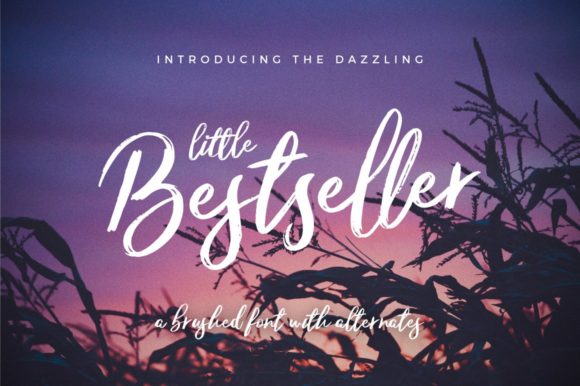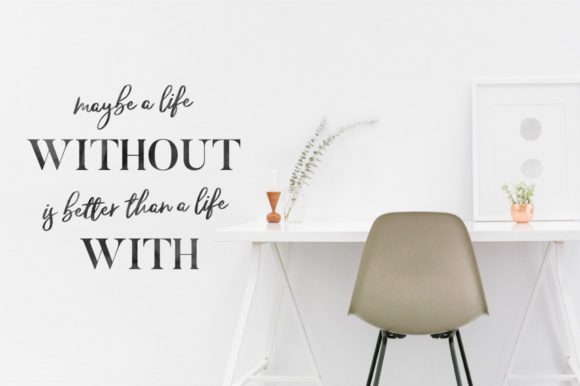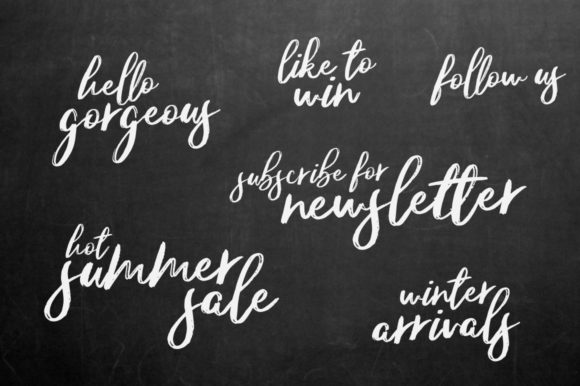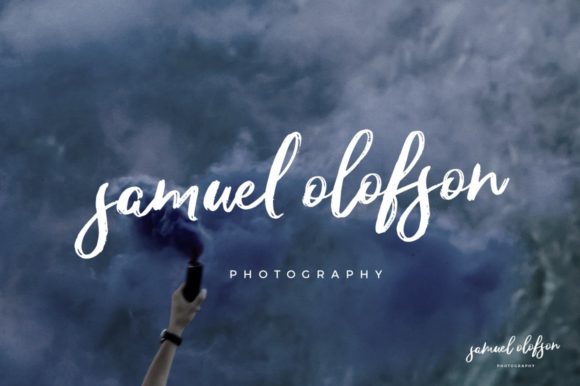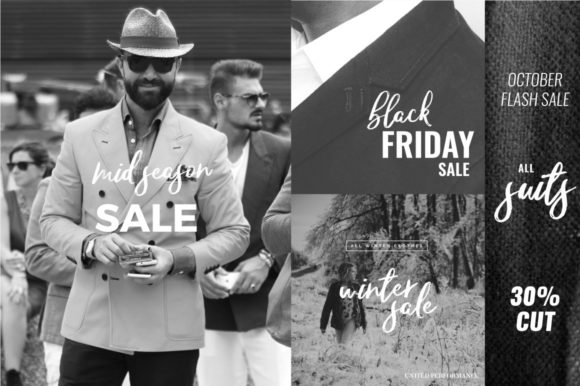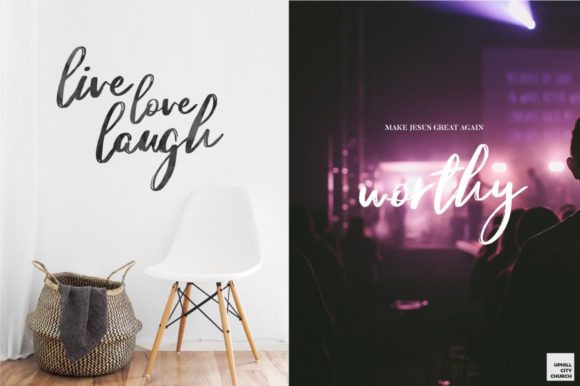
Little Bestseller Font
About Little Bestseller Font
Little Bestseller is a sweet and charming handwritten font with a unique style. It will turn any design idea into a true piece of art.